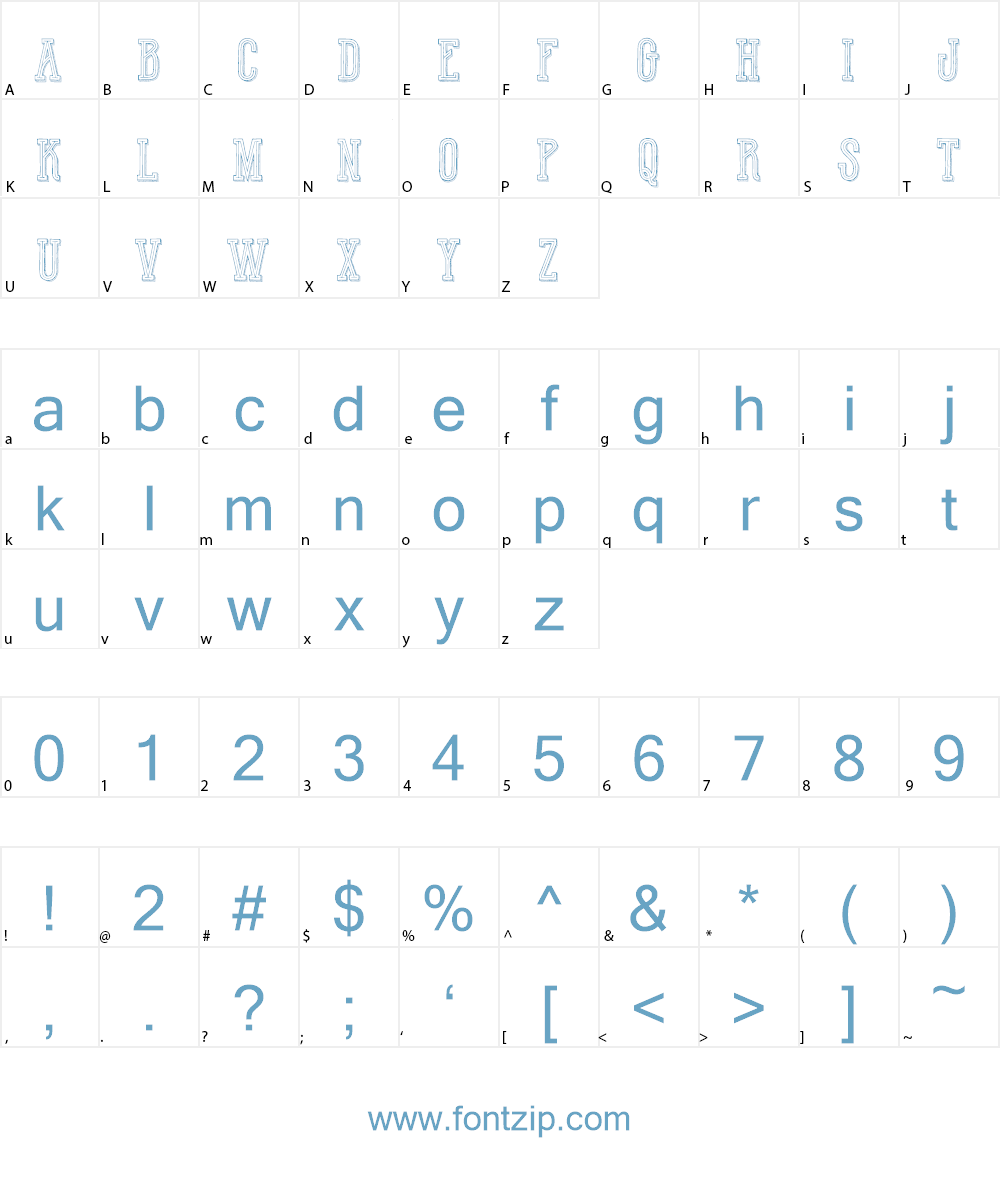
We all know that "College style" fonts are a must because of their infinite possibilities of use, but which one to choose?
Our "Hot Winner Team" font (http://fontscafe.com/font/hot-winner-team-font) covey with its fine inner layer solid core values and its surrounding border defines immense strength, all the traits of a winner!